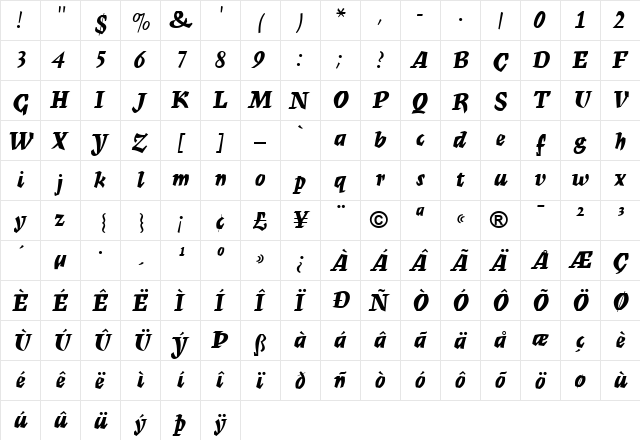
MercuriusMTScript BoldItalic Font Preview
Design Context for MercuriusMTScript Typeface
MercuriusMTScript brings a calligraphic fluidity to the page — its connecting strokes and expressive curves give it an unmistakably human quality. The heavy weight commands attention and anchors typographic hierarchies.